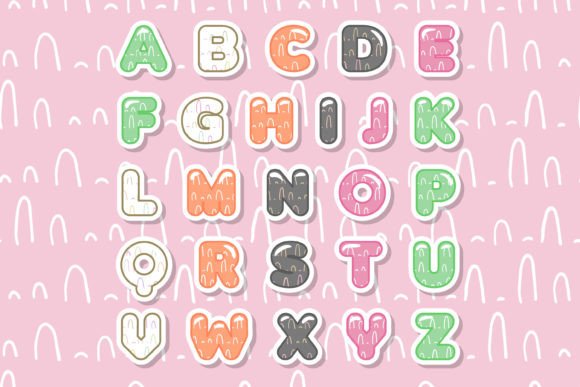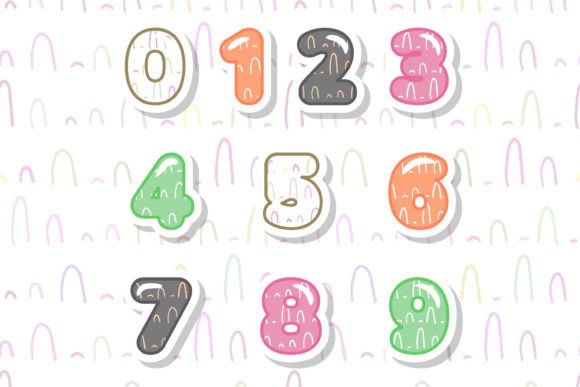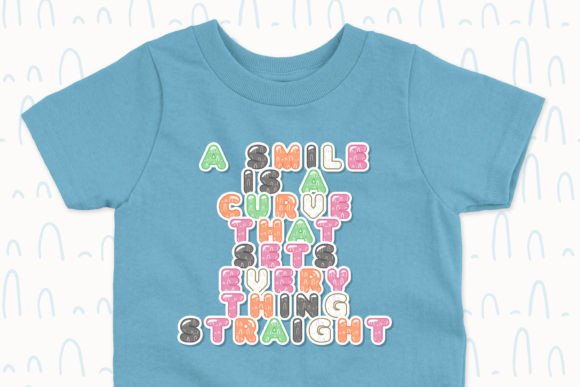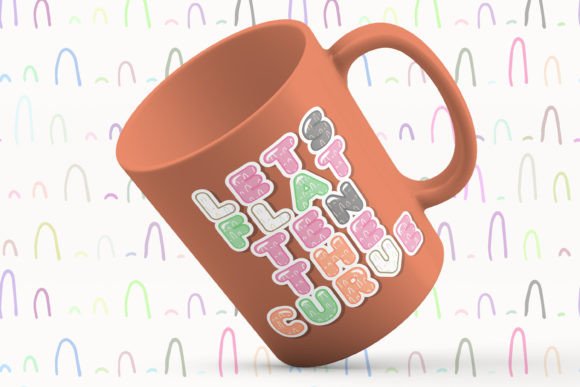
Discover the Charm of Curvy Draw Font: Elevate Your Designs with a Unique Arc Pattern Style
Are you on the lookout for a font that adds a touch of elegance and whimsy to your designs? Look no further than the Curvy Draw Font, an incredibly cool color font designed in the style of Arc Pattern. Whether you use it for custom designs, DIY crafts, or just any creation that requires a lovely touch, this font will be an amazing choice. In this article, we’ll dive into the features, benefits, and uses of Curvy Draw Font, and explore how it can elevate your designs to the next level.
What is Curvy Draw Font?
Curvy Draw Font is a unique and visually striking color font that is inspired by the Arc Pattern style. Its curvy and fluid lines make it perfect for adding a touch of sophistication and charm to any design. The font is designed to be versatile and can be used for a wide range of applications, from custom designs and DIY crafts to digital art and illustration.
Key Features of Curvy Draw Font
• Unique Arc Pattern Style: Curvy Draw Font boasts a distinctive Arc Pattern style that sets it apart from other fonts. Its curvy lines and fluid curves create a beautiful, eye-catching effect that is sure to capture attention.
• Color Font: Unlike traditional fonts, Curvy Draw Font is a color font, which means it comes with a range of colors that can be used to add depth and dimension to your designs.
• Versatile: Curvy Draw Font is incredibly versatile and can be used for a wide range of applications, from digital art and illustration to custom designs and DIY crafts.
• Easily Customizable: The font is easy to customize, allowing you to adjust the colors, size, and style to suit your design needs.
Benefits of Using Curvy Draw Font
So, why should you choose Curvy Draw Font for your designs? Here are just a few benefits of using this amazing font:
• Adds a Touch of Elegance: Curvy Draw Font adds a touch of elegance and sophistication to any design, making it perfect for projects that require a high-end look.
• Stand Out from the Crowd: The unique Arc Pattern style and color options of Curvy Draw Font make it a great way to add some personality to your designs and stand out from the crowd.
• Saves Time: With Curvy Draw Font, you can create beautiful designs quickly and easily, saving you time and effort.
• Perfect for DIY Crafts: The font is perfect for DIY crafts, such as card making, scrapbooking, and other paper crafts.
Uses of Curvy Draw Font
Curvy Draw Font is a versatile font that can be used for a wide range of applications, including:
• Custom Designs: Use Curvy Draw Font to create custom designs for logos, branding, and advertising.
• DIY Crafts: The font is perfect for DIY crafts, such as card making, scrapbooking, and other paper crafts.
• Digital Art and Illustration: Curvy Draw Font can be used to add a touch of elegance and whimsy to digital art and illustration.
• Social Media Graphics: Use the font to create eye-catching social media graphics that are sure to capture attention.
Tips for Using Curvy Draw Font
Here are a few tips for using Curvy Draw Font:
• Experiment with Colors: Don’t be afraid to experiment with different colors and combinations to find the perfect look for your design.
• Adjust the Size and Style: Adjust the size and style of the font to suit your design needs.
• Use it with Other Fonts: Curvy Draw Font can be used with other fonts to create a unique and visually striking effect.
In conclusion, Curvy Draw Font is an amazing font that can add a touch of elegance and whimsy to any design. Its unique Arc Pattern style, color options, and versatility make it perfect for a wide range of applications. Whether you’re a designer, crafter, or DIY enthusiast, Curvy Draw Font is sure to become a favorite in your design arsenal.